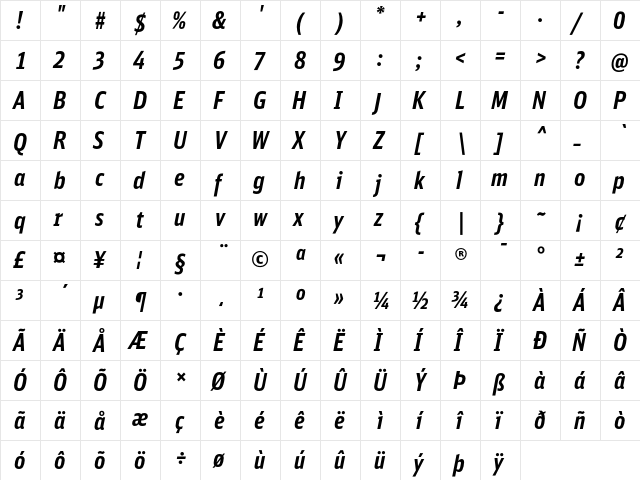
DB Sans Comp Bold Italic Font Preview
Design Context for DB Sans Comp Typeface
DB Sans Comp offers clean, dependable letterforms without strong stylistic allegiance, making it a practical choice for designers who need flexibility. Its italic angle brings a sense of urgency and motion to the letterforms. Its bold stroke weight gives it real presence on the page.
Pro Tip: Try DB Sans Comp for annotation and caption copy alongside an upright companion — the contrast in angle creates a dynamic but ordered typographic system.